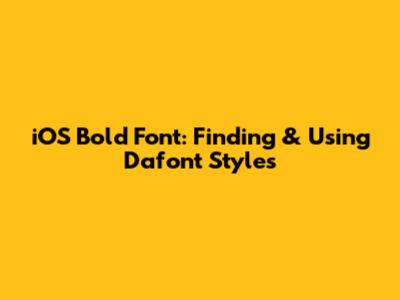
What's up, font fanatics and design lovers! Ever scrolled through your iPhone or iPad and thought, "Man, I wish I could jazz up this text a bit more?" You're not alone, guys. We've all been there, staring at the default fonts and feeling a little uninspired. But what if I told you there's a way to inject some serious personality into your iOS device's text, especially when it comes to bold fonts? And not just any bold fonts, but those cool, unique styles you find on sites like Dafont? Yeah, you heard me right. We're diving deep into the awesome world of iOS bold font options and how you can snag those sweet, custom looks from places like Dafont and rock them on your Apple gear. Get ready to level up your text game, because by the end of this, you'll be a pro at making your words pop!
The Allure of Bold Fonts on iOS
Let's be real, bold fonts aren't just about making text bigger; they're about making it stand out. Think about it: headlines, important calls to action, or even just that one word you want to emphasize in a message. A good bold font adds weight, authority, and visual interest. On iOS, while the system fonts are sleek and functional, they can sometimes feel a bit too, well, stock. That's where the magic of custom fonts comes in. The desire for a bold font iOS experience that's more aligned with your personal style or a specific project's aesthetic is totally valid. We're talking about fonts that convey different moods – from a strong, commanding presence to a playful, energetic vibe. The ability to choose a font that truly reflects the message you want to send is powerful. Whether you're a student wanting to make your notes more engaging, a small business owner looking to create branded content, or just someone who appreciates good typography, the quest for the perfect iOS bold font is a journey worth taking. It's about personal expression and making your digital world a little more you. The default options are fine, but custom fonts, especially those with a striking bold variant, unlock a new level of visual communication. Imagine your iMessages looking like they came straight out of a high-end magazine, or your social media posts having that extra professional polish. That's the power we're unlocking today, and it all starts with finding the right font.
Why Dafont is a Font Lover's Paradise
Now, when it comes to finding a massive library of free and often downright awesome fonts, Dafont is a name that frequently pops up. It's like the digital treasure chest for anyone who loves typography. Dafont hosts an unbelievable collection of fonts, categorized in ways that make it surprisingly easy to navigate – even if you're just starting out. From script and display fonts to gothic and techno styles, they've got it all. And the best part? A huge chunk of these are available for free for personal use, which is a major win for us iOS users looking to customize our devices without breaking the bank. We're talking about exploring fonts that designers around the world have created, each with its own unique flair. Need a chunky, attention-grabbing font for a party invite? Dafont has it. Looking for an elegant, sophisticated script for a special occasion? Dafont probably has ten variations of it. The sheer volume and diversity are staggering. Plus, the site often includes previews where you can type in your own text to see how it looks in the font before you download it. This is super handy for quickly assessing if a particular bold font will work for your needs. It's this accessibility and the sheer breadth of creative output that makes Dafont such a go-to resource. You can spend hours just browsing, discovering new styles, and imagining all the ways you could use them. It’s a community of creators sharing their work, and we get to benefit from it. So, when we talk about finding that perfect iOS bold font, Dafont is undoubtedly one of the first places we'll be looking.
Navigating Dafont for the Perfect Bold Font
Alright guys, so you're hyped to hit up Dafont and find that killer bold font for your iOS device. But where do you even start with a site that has thousands upon thousands of fonts? Don't sweat it; I've got your back. The first thing you'll want to do is head over to the Dafont website. Once you're there, you'll notice a bunch of categories on the left-hand side. These are your best friends for navigating. For bold fonts, you'll often want to look in categories like 'Fancy', 'Script', 'Display', or even 'Techno' or 'Gothic' depending on the vibe you're going for. Sometimes, a font might be listed under a broader category but have a distinct bold weight. Another pro tip: use the search bar! If you have a general idea of the style you want (e.g., "retro bold," "modern bold," "handwritten bold"), type that in. You might be surprised at what you find. When you click on a font you like, Dafont usually shows you a preview. Crucially, look for fonts that specifically mention "Bold" or "Black" in their name or description. Sometimes, what looks bold in the preview is actually just a standard weight. You want to be sure you're downloading a font that has a true, robust bold style. Also, pay attention to the licensing. Most fonts on Dafont are free for personal use, but if you plan to use them for commercial projects (like a business logo or website), you'll need to check the specific license or contact the author. For simply changing the font on your own device or in personal messages, the free license is usually perfect. So, take your time, explore the categories, use the search, and always check the font details to ensure you're getting a genuine bold font that fits your iOS needs. It's a bit of a hunt, but finding that perfect typographic gem is super rewarding!
Creative Ways to Use Dafont Bold Fonts on Your iOS Device
Even with the system-wide limitations, there are tons of super fun and creative ways to flex those Dafont bold fonts on your iOS device. Think of it as unlocking special abilities for certain apps! Firstly, note-taking apps are a goldmine. Imagine your study notes looking incredibly organized and stylish, with bold headings and key terms jumping off the page. Apps like GoodNotes or Notability allow you to import fonts, so you can create beautiful, personalized planners, journals, or study guides. Your notes won't just be informative; they'll be a visual treat! Secondly, graphic design and social media content creation is where these fonts truly shine. Apps like Canva, Adobe Express, or even Procreate let you import custom fonts. This means you can design eye-catching Instagram stories, unique quote graphics for Pinterest, or even simple flyers right from your iPad or iPhone. Want your event announcement to have a vintage bold font feel? Download one from Dafont, import it into Canva, and boom – instant professional-looking design. Thirdly, consider personalizing documents. If you use apps like Pages or Microsoft Word on your iOS device to write reports, essays, or creative stories, you can import bold fonts to give your writing a distinct character. A report with a strong, bold title font can make a significant difference in its presentation. Finally, think about digital scrapbooking or journaling apps. These are perfect for importing decorative or bold fonts to add flair to your digital memories. The key is understanding that while you might not be able to change your system keyboard font, you can absolutely enhance the visual appeal of content created within specific applications. It's all about choosing the right app for the job and leveraging the incredible font library that Dafont offers to make your iOS creations stand out.
Finding Fonts with True Bold Weights
This is a crucial point, guys, and it's something that trips a lot of people up when they're hunting for that perfect bold font on sites like Dafont. Not every font that looks a bit thicker is a true